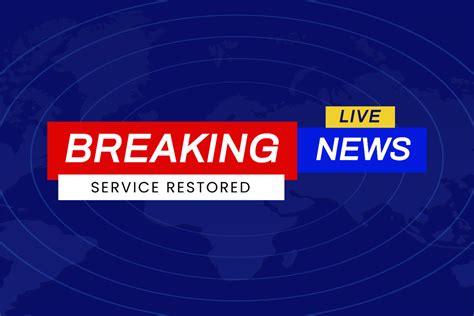
IIF1 Breaking News Template Font: A Designer's Guide
Hey design enthusiasts! Ever wondered what makes those breaking news graphics pop? You know, the ones that instantly grab your attention and scream urgency? A huge part of that magic comes down to the font choice, and today, we’re diving deep into the world of the IIF1 breaking news template font . This isn’t just about picking a pretty typeface; it’s about understanding how specific fonts, like those often found in IIF1 templates, can communicate a message before anyone even reads a word. We’ll explore why these fonts are so effective, where you can find them, and how you can use them to make your own designs hit harder. Get ready to level up your typography game, because understanding the right font for breaking news is crucial for any designer looking to make an impact. We’re going to break down the anatomy of a good breaking news font and show you how to wield this powerful design tool like a pro. So, buckle up, grab your favorite design software, and let’s get started on this typographic adventure!
The Anatomy of an Impactful Breaking News Font
So, what exactly makes a font scream ‘breaking news’? It’s a combination of factors, guys, and it’s more than just being bold. Think about the core message of breaking news: it’s urgent, it’s important, and it needs to be read now . Therefore, the IIF1 breaking news template font often possesses characteristics that reflect this immediacy. We’re talking about legibility – it has to be super easy to read, even at a glance, on various screen sizes or in crowded layouts. This usually means a clean, sans-serif design. Think strong, defined strokes and minimal fuss. Another key element is impact . These fonts need to have presence. They’re often sturdy, sometimes with a slightly condensed feel to fit more information without sacrificing readability. You might see sharp terminals, geometric shapes, or even a subtle boldness that commands attention. Versatility is also key. A great breaking news font needs to work in different weights and sizes – from a huge headline on a TV graphic to a smaller caption in a social media post. This ensures consistency across all your platforms. Let’s not forget about the psychology behind it. Certain fonts evoke feelings of authority, reliability, and seriousness, which are all essential for credible news reporting. A good breaking news font can convey trust and professionalism, making the information it presents feel more significant. Ultimately, the best fonts for this purpose aren’t just decorative; they are functional tools that enhance communication. They are the silent storytellers, setting the tone and guiding the viewer’s eye. So, when you’re looking at fonts for your next news project, remember these core components: legibility, impact, versatility, and psychological resonance. It’s this blend that makes a font truly effective in the fast-paced world of breaking news. We’ll delve into specific examples later, but understanding these foundational principles is your first step to mastering this niche of typography. It’s like choosing the right weapon for the job – you need something that’s sharp, reliable, and gets the message across loud and clear.
Why IIF1 Templates Shine with These Fonts
Alright, let’s talk about why IIF1 breaking news templates often nail the font game. These templates are designed by professionals who understand the nuances of broadcast graphics and news dissemination. They know that the IIF1 breaking news template font isn’t an afterthought; it’s a foundational element. IIF1, and similar template creators, invest a lot of time in curating font pairings that work harmoniously with their visual design. They often select fonts that are not only aesthetically pleasing but also highly functional for news environments. Think about it: a template is a pre-built package. It needs to be ready to go, requiring minimal tweaks for maximum impact. The fonts chosen within these templates are typically robust, legible, and possess a certain gravitas that suits the gravity of news. They avoid overly decorative or script fonts that would be distracting or difficult to read under pressure. Instead, they lean towards clean, modern sans-serifs, geometric sans-serifs, or even sturdy serifs that convey trustworthiness and authority. The IIF1 team likely tests these fonts extensively to ensure they render well across different resolutions and platforms, from large broadcast screens to small mobile devices. This meticulous attention to detail means that when you download an IIF1 breaking news template, you’re not just getting a graphic layout; you’re getting a thoughtfully composed visual package where the typography plays a starring role. They understand the pressure of a live news cycle and design their templates, including the font choices, to facilitate quick, effective communication. This is why these templates are so popular – they take the guesswork out of creating professional-looking news graphics. The font is already chosen for its optimal performance in a news context, saving designers precious time and ensuring a polished final product. It’s about leveraging expertise to deliver a solution that’s both visually appealing and incredibly practical for the fast-paced world of news reporting. So, when you see those sharp, clear headlines in an IIF1 template, you know it’s a deliberate choice aimed at maximizing readability and impact in critical moments.
Finding Your Perfect Breaking News Font
Okay, so you’re convinced that the right font is a game-changer for your breaking news graphics. But where do you actually find these powerful typefaces, especially if you don’t have access to a premium IIF1 template with pre-selected fonts? Don’t sweat it, guys! There are tons of amazing resources out there. First off, let’s talk about free font resources . Websites like Google Fonts are an absolute goldmine. You can find incredibly versatile and professional sans-serif fonts like Montserrat , Oswald , Roboto , and Lato . These are all fantastic options that offer multiple weights and styles, making them perfect for headlines, sub-headlines, and body text in your news designs. Another great free resource is Font Squirrel, which offers a curated collection of high-quality free fonts that are generally licensed for commercial use. Always double-check the licenses, though! For those willing to invest a bit, premium font foundries offer unparalleled quality and unique designs. Think Adobe Fonts (often included with Creative Cloud subscriptions), MyFonts, and Fontspring. Here, you can find more specialized fonts that might have that extra edge or unique character. Look for fonts that are described as ‘display’ fonts, ‘headline’ fonts, or even ‘news’ fonts. These are often designed with maximum impact and readability in mind. When you’re browsing, pay attention to the font families . A strong font family will have a range of weights (thin, light, regular, medium, bold, black) and possibly italics. This variety is essential for creating hierarchy and visual interest in your designs. For example, you might use a bold weight for the main headline, a medium weight for a sub-headline, and a regular weight for supporting text. Don’t be afraid to experiment! Download a few different options and test them out in your template. See how they look at different sizes and in different color combinations. Consider the overall mood you want to convey. Is it urgent and alarming? Or more serious and authoritative? The font you choose will significantly influence this perception. Remember those core principles we discussed: legibility, impact, and versatility. Keep those in mind as you search, and you’ll be well on your way to finding that perfect font to make your breaking news graphics truly unforgettable. It’s about finding that sweet spot between professional polish and the raw energy of breaking news.
Utilizing Fonts for Maximum Impact in News Graphics
Now that you’ve got a handle on finding great fonts, let’s talk about how to use them effectively in your breaking news graphics . It’s not just about picking the right IIF1 breaking news template font or any other font for that matter; it’s about deploying it strategically. The first rule of thumb? Hierarchy is king . Your main headline needs to be the most prominent element. Use a heavier weight, a larger size, and perhaps a bolder color to make it stand out. Think of it as the loud voice that grabs everyone’s attention. Sub-headlines and supporting text should be smaller and less emphatic, guiding the viewer through the information without competing with the main message. This creates a clear visual path for the reader. Readability reigns supreme , especially under pressure. Ensure there’s enough contrast between your text color and the background. Avoid thin or overly complex fonts for crucial information. If people have to squint or strain to read it, you’ve failed. Test your designs on different screens – a font that looks great on a desktop might be unreadable on a mobile phone. Consistency across platforms is another crucial point. If you’re using a specific font for your breaking news alerts on social media, try to maintain a similar style or even the exact font in your video graphics or website banners. This builds brand recognition and makes your news feel cohesive. Negative space is your friend! Don’t cram too much text into your design. Giving your text room to breathe makes it easier to digest and makes the overall design look more professional and less chaotic. This is especially important for breaking news, where clarity is paramount. Consider the psychological impact of your font choices. A sharp, condensed sans-serif might convey speed and urgency, while a slightly wider, more stable font could communicate authority and reliability. Play with these nuances to match the tone of the news you’re reporting. Finally, don’t be afraid of contrast in your font pairings. While sticking to a core font family is often safe, sometimes pairing a strong sans-serif headline font with a more subdued serif for body text can add sophistication. Just ensure they complement each other and don’t clash. By thoughtfully applying these principles, you’ll elevate your breaking news graphics from simple text on a screen to compelling visual narratives that inform and engage your audience effectively. It’s all about making every letter count, ensuring your message is not just seen, but truly understood, in those critical moments when time is of the essence.
Mastering the Art of News Typography
So, there you have it, folks! We’ve journeyed through the essential elements of what makes a breaking news font truly effective, why IIF1 breaking news template fonts are often so spot-on, and where you can find your own killer typefaces. Remember, mastering news typography isn’t just about aesthetics; it’s about clear, impactful communication. It’s about ensuring that your message cuts through the noise and reaches your audience effectively, especially during those critical moments when every second counts. Whether you’re designing for broadcast, social media, or web, the principles remain the same: prioritize legibility , ensure impact , maintain versatility , and consider the psychological resonance of your chosen fonts. By applying strategic hierarchy, ensuring ample contrast, utilizing negative space wisely, and maintaining consistency across platforms, you can transform your news graphics into powerful visual tools. Don’t shy away from experimenting with different fonts and styles – the key is to find what works best for your specific content and audience. Keep these tips in mind, practice consistently, and you’ll be well on your way to creating breaking news graphics that are not only eye-catching but also incredibly effective. Happy designing, and may your headlines always be bold and your messages always be clear!